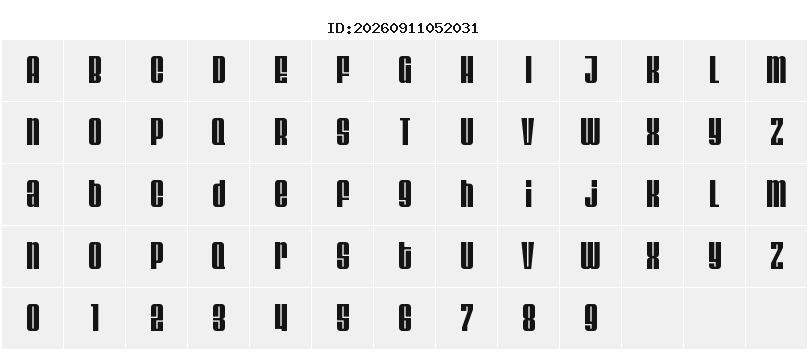
Velvenda Cooler Preview
• Font Name: Velvenda Cooler
• Font ID: RayLarabie: Velvenda Cooler: 2002
• Full Font Name: Velvenda Cooler
• Version: Version 2.0; 2002; initial release
• PostScript Name: VelvendaCooler
• Designer: Ray Larabie
About Velvenda Cooler.ttf
Velvenda Cooler.ttf is a modern, elegant sans-serif font designed for ultimate readability and visual harmony. Perfect for branding, headlines, web design, and print materials.